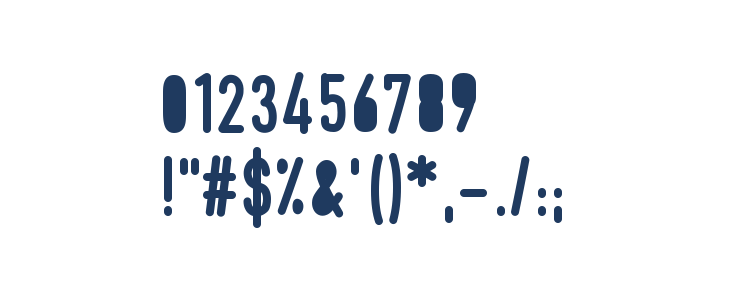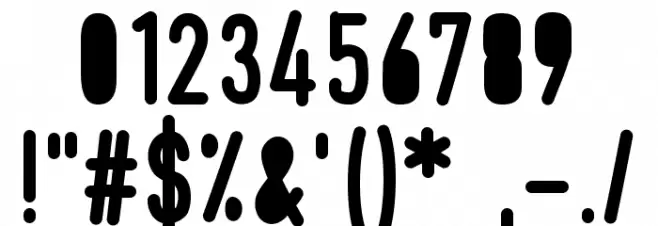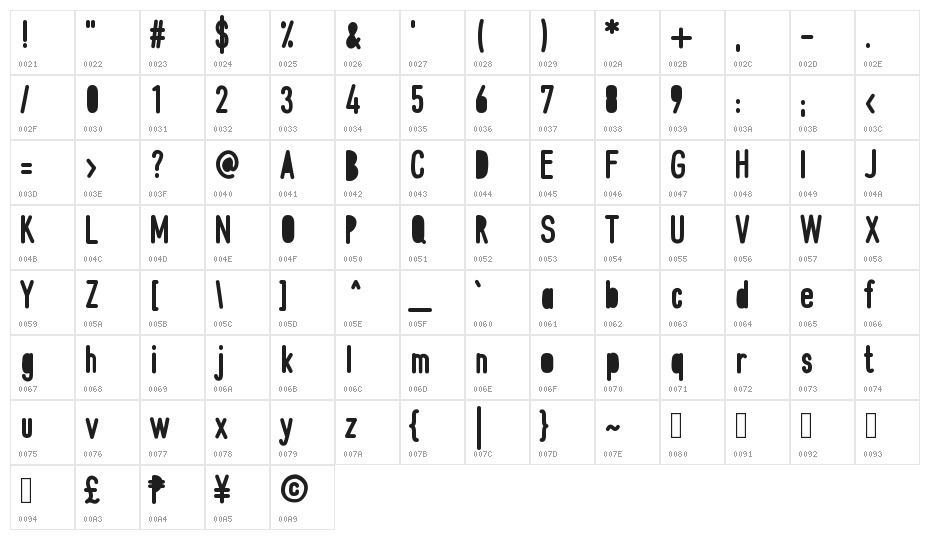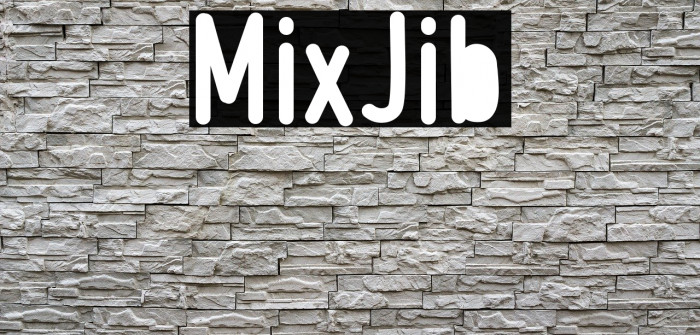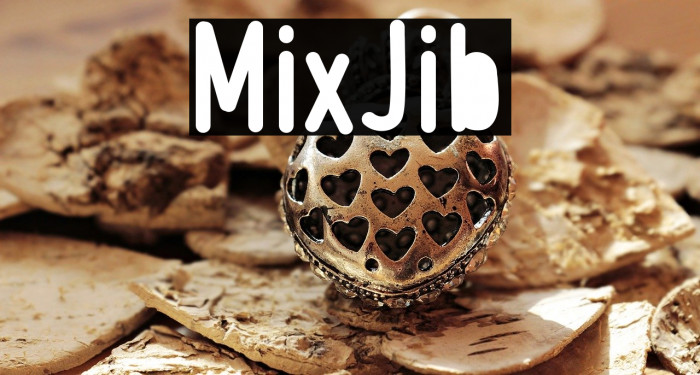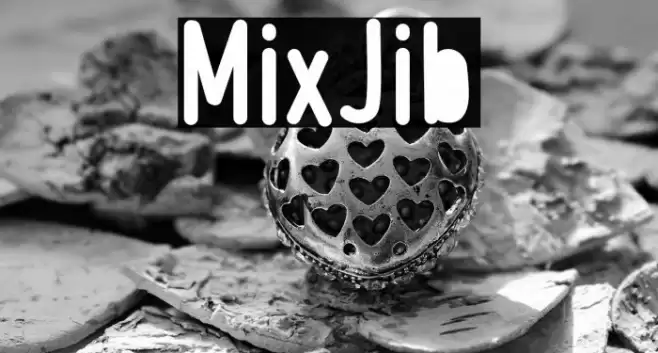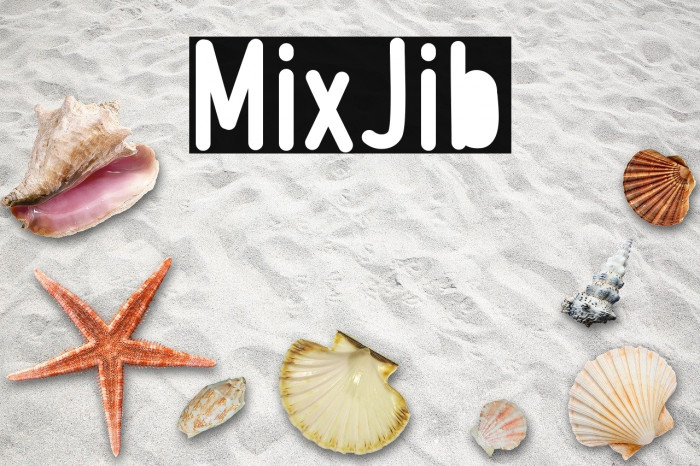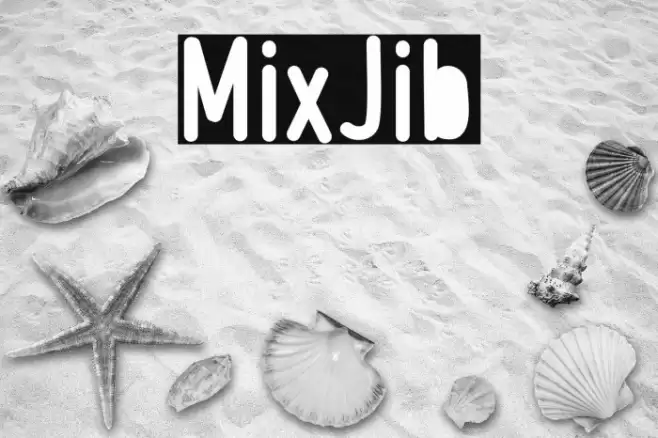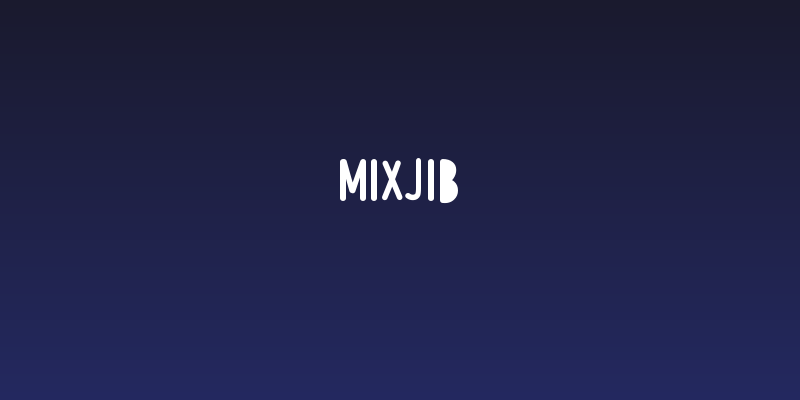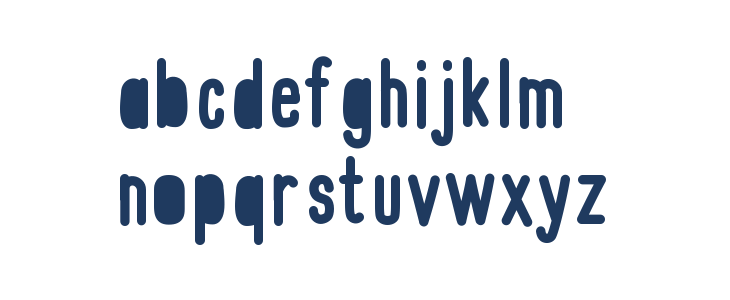
MixJib Font
MixJib Description
This font features a playful and bold style with rounded edges and a slightly condensed form. The uppercase letters are tall and uniform, while the lowercase letters maintain a consistent height, providing a harmonious balance. The numbers are bold and easy to read, matching the overall aesthetic. Special characters are distinct and maintain the playful nature of the font. The design is modern and approachable, making it suitable for a variety of creative projects.
| Proposed Projects | Ideal for children's books, playful branding, posters, and social media graphics. |